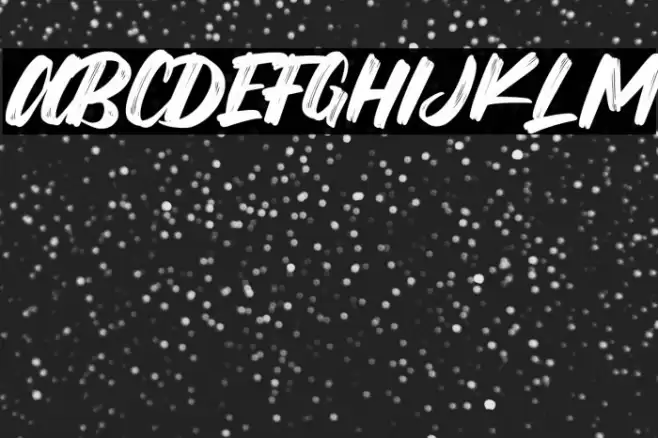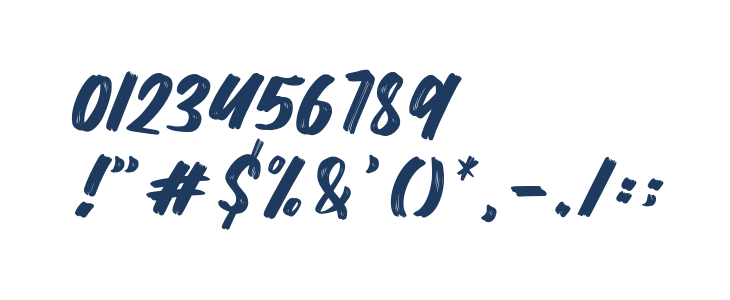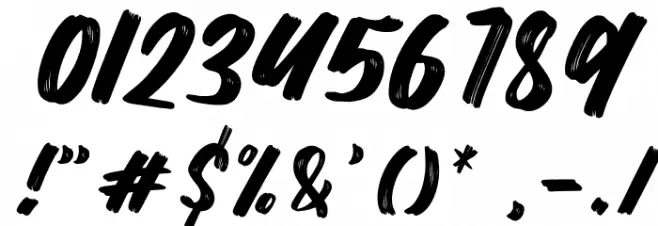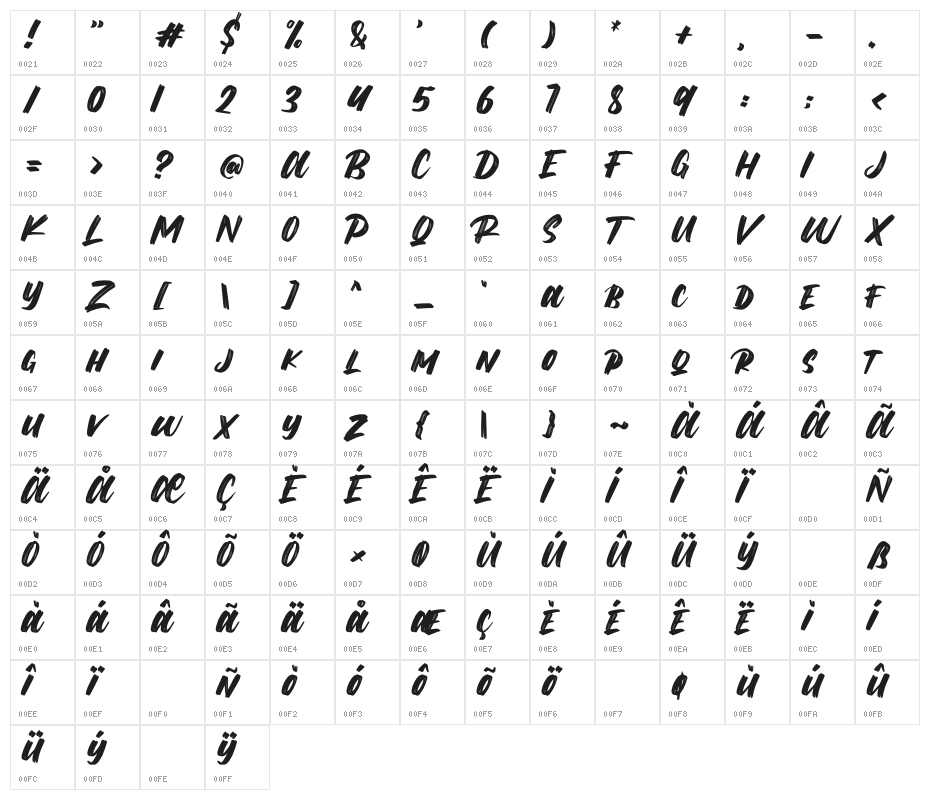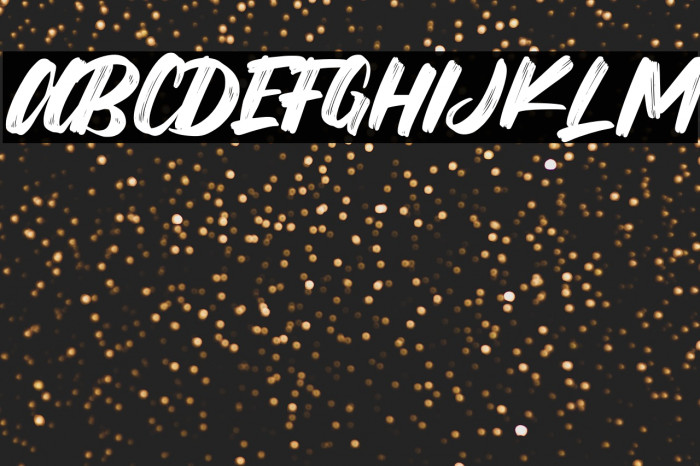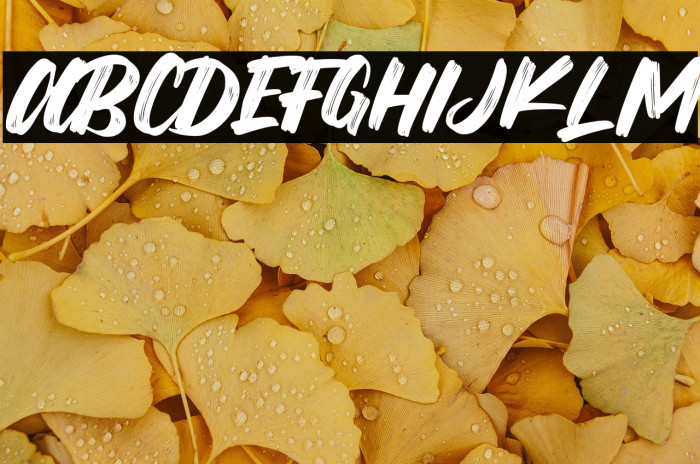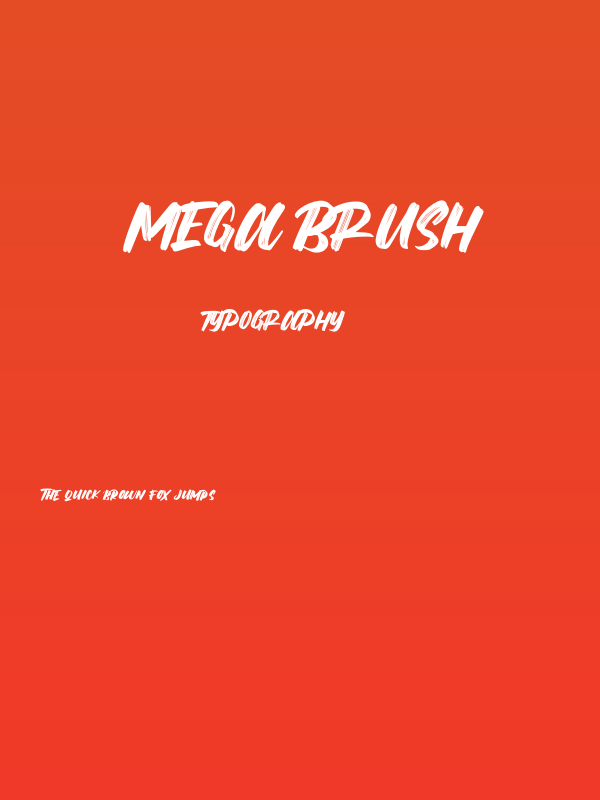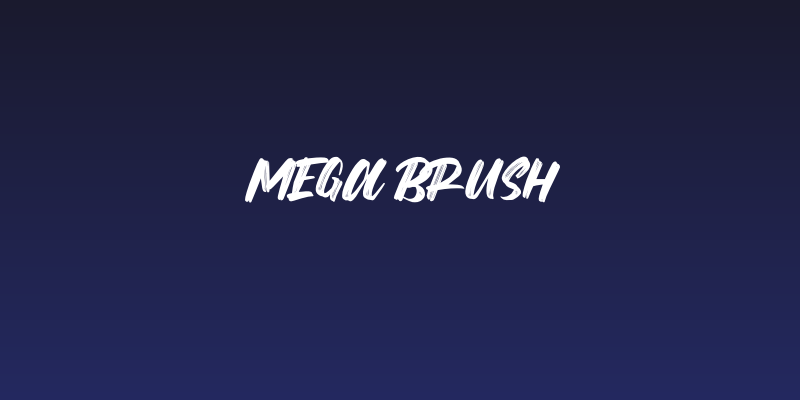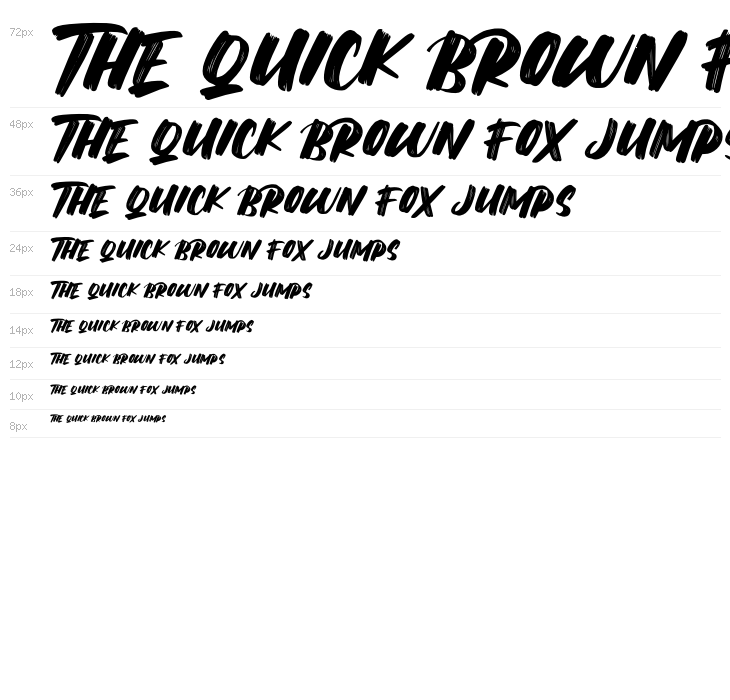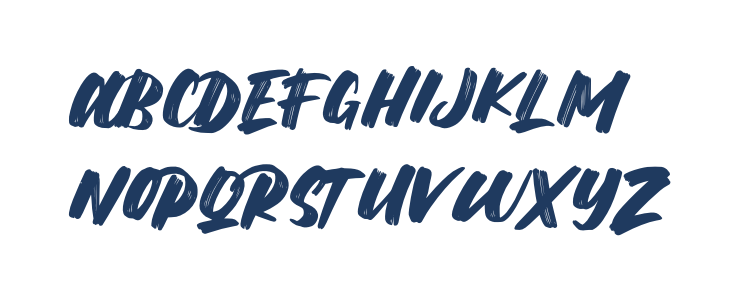
Mega Brush Font
Mega Brush Description
This font exudes a bold and dynamic energy, characterized by its brush-like strokes that convey a sense of movement and spontaneity. The letters are crafted with thick, expressive lines that vary in width, creating a lively and textured appearance. The uppercase and lowercase letters maintain a consistent style, with a slightly slanted orientation that adds to the font's dynamic nature. The numerals and special characters are equally expressive, ensuring a cohesive look across all text elements. This font is ideal for projects that require a strong visual impact and a touch of artistic flair.
A bold, brush-style font with dynamic, expressive strokes from Uncategorized fonts.
- Font: Mega Brush
- Proposed Projects: Perfect for posters, branding, packaging, and any design needing a bold, artistic touch.